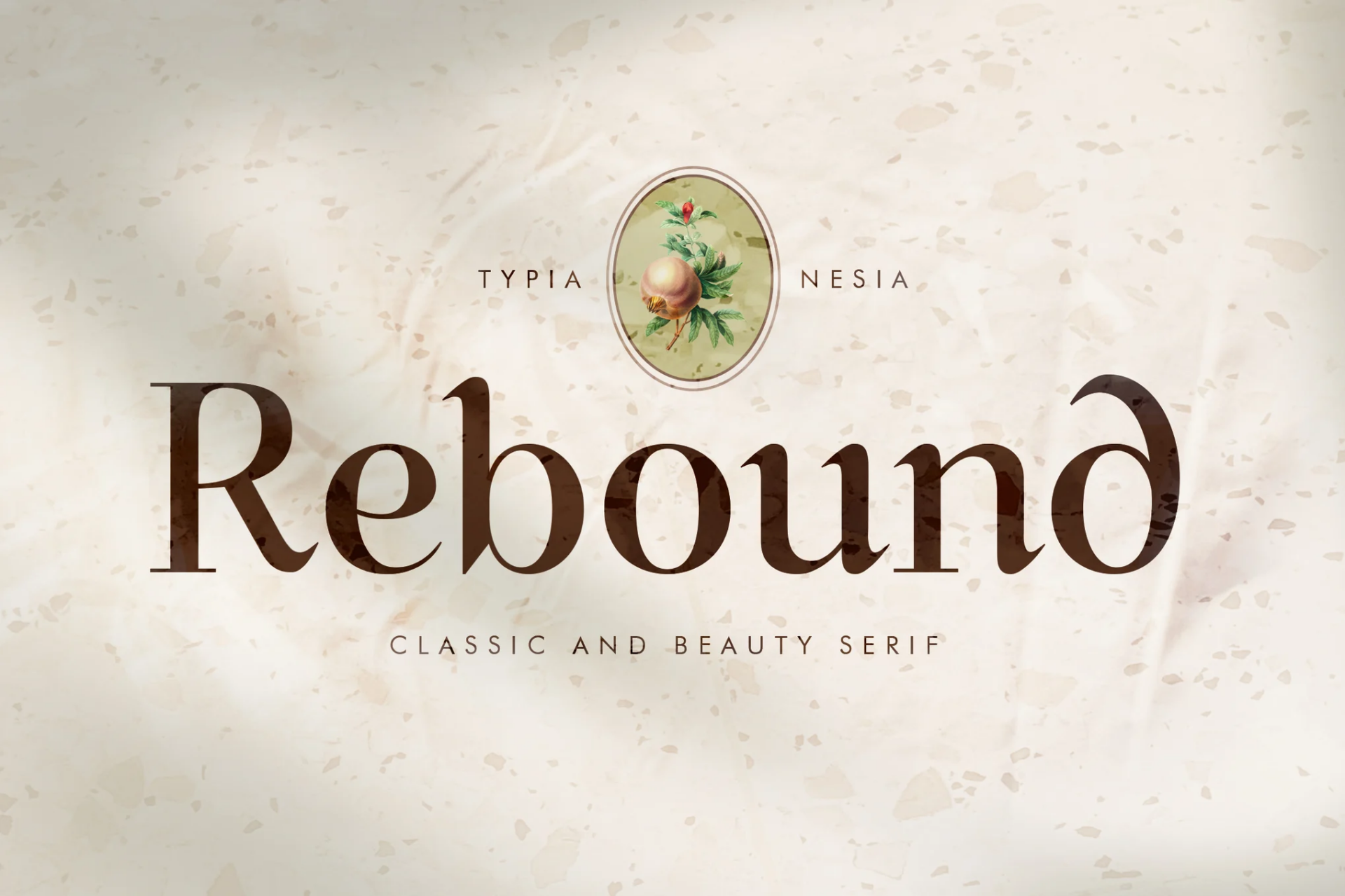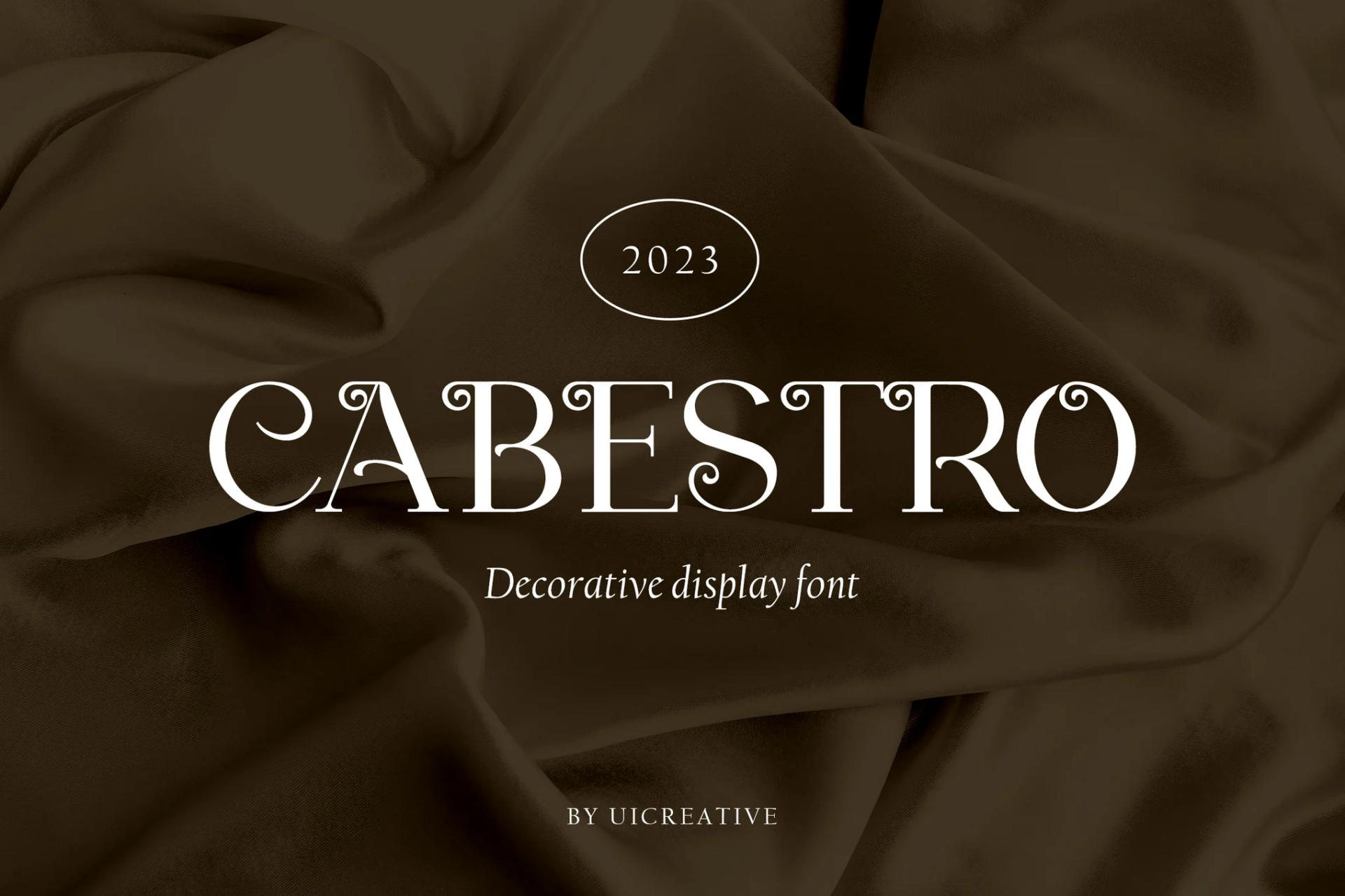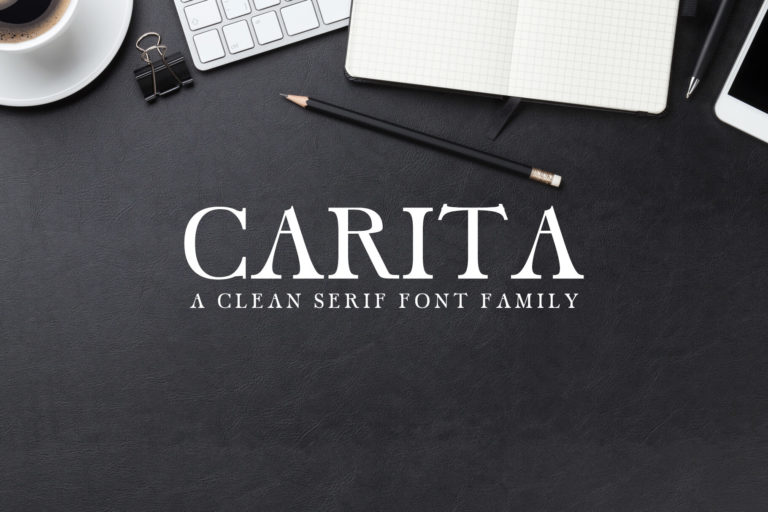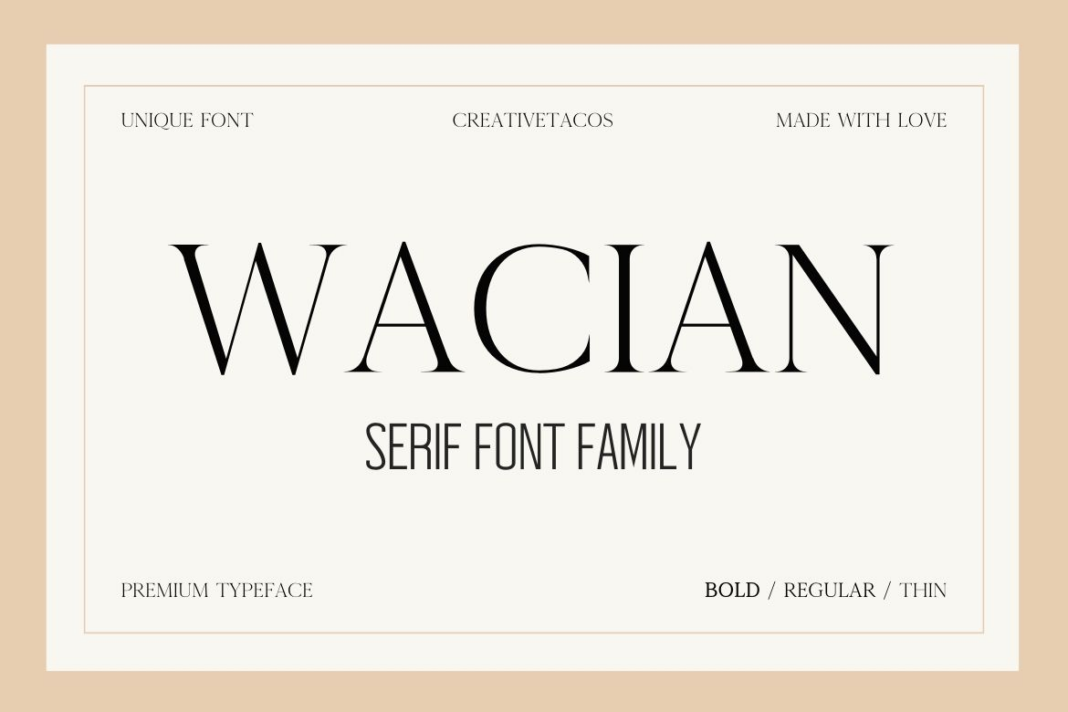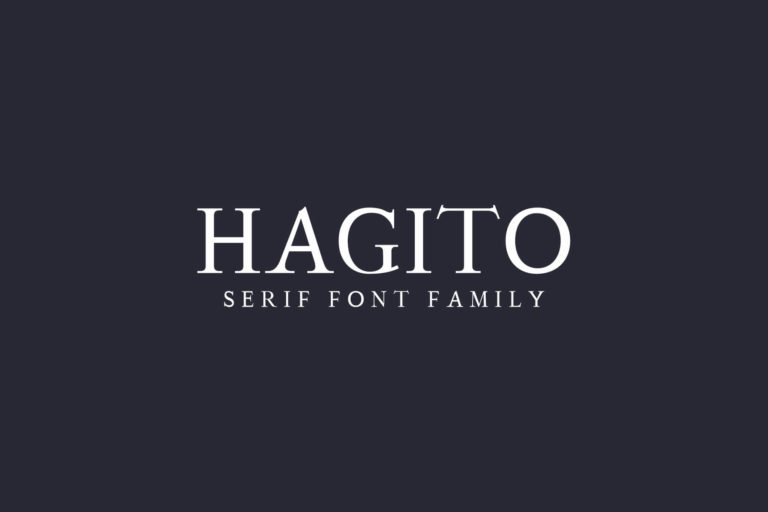
Giftaway – Romance Best Fantasy Font in Serif
Giftaway – Romance Serif font is perfect for your up coming projects. Such as luxury logo and branding, classy editorial design, magazine, fashion promotional, boutique branding, stationery design, blog design, modern advertising design, card invitation, art quote, home decor, book/cover title, special events and any more.
Rebound – Classic Beauty Serif – Vintage Fantasy Font
Rebound Serif is perfect for your up coming projects. Such as luxury logo and branding, classy editorial design, woman magazine, cosmetic brand, fashion promotional, art gallery branding, museum, historical of architectural, boutique branding, stationery design, blog design, modern advertising design, card invitation, art quote, home decor, fantasy movie / game, novel / book / cover title, special events and any more.
Cabestro Decorative Display Fantasy Font
Introducing our new product the name is Cabestro Decorative Display Font. Cabestro Decorative Display Font that feels beautiful classy, elegant, and modern. This font is perfectly suited for a wide variety of projects, such as signature, stationery, logo, wedding, typography quotes, magazine or book covers, website headers, clothing, branding, packaging design, and more.
Carita Serif Fantasy Font Family
Carita Clean Serif Typeface is a set of 3 weights font family. It is good for making creative templates and stationary. Carita typeface suits best for modern / clean designs, logos, headlines, banners and templates etc. It looks gorgeous in all caps with a wide-set spacing if you want to try a classy look, or beautiful on its own in capital and lowercase letters for something completely timeless.
Wacian Serif Fantasy Font Family
Wacian is a modern serif font that comes in 3 different weights, making it a good pick for many design jobs. It includes all the standard letters and symbols and characters for languages other than English. This font is quite flexible. You can use it to write headlines that catch the eye. If you’re making posters for an event, Wacian’s different styles can help your poster stand out.
Hagito Serif Fantasy & Gothic Font Family
Hagito A Serif Font Family is a strong and fashionable serif font with multiple styles. It has a striking look which makes it perfect for every design that needs to stand out. It features 254 unique glyphs and supports many different languages. Hagito will be great for packaging, presentations, logo, headlines, lettering, posters, branding, quotes, titles, magazines headings, web layouts, advertising, invitations, packaging design, books, and nearly any creative design.
Rockabye Serif Fantasy Font
We are happy to share Rockabye Serif Font, a stylish, luxurious and vintage font with a touch of modernity for your upcoming design project. This font can be used in invitations, kids’ books, beach party flyers, lemonade stand signs, ice cream truck menus, branding, greeting cards, brochures, book titles, stickers, love letters, and more.
Elite Accents Font
Elite Accents Fantasy Font is a modern serif typeface that is bold and elegant. This font is great for projects that must look classy and be easy to read because it has special diacritical accents. It can be used for both digital and print media because it has strong lines and clear serifs.
Crayon Delight Font
The Crayon Delight Font is a playful and fun typeface that feels like a crayon drawing. It’s great for projects like books and posters for kids, but it can also add a creative touch to any design. The font comes in both regular and outline versions, giving you even more ways to use it in your work.
Grenosa Gothic Fantasy Font
Grenosa is a gothic font inspired by metal and Victorian styles. With its refined details, this typeface brings a sense of sophistication to horror, dark, and fantasy visual designs.
Kawai Craft – Vintage / Retro Serif Bold Font
Kawai Craft comes with some ligatures, so you can combine it to make a perfect typography design. Suitable for any design needs : logo, branding, modern advertising design, vintage garage design, adventure / mountain hiking brand, hardcore music, animation or movie, logos, retro summer poster quote, book / novel cover Title, editorial design, website / blog, card, and any Italic hand-lettered needs.